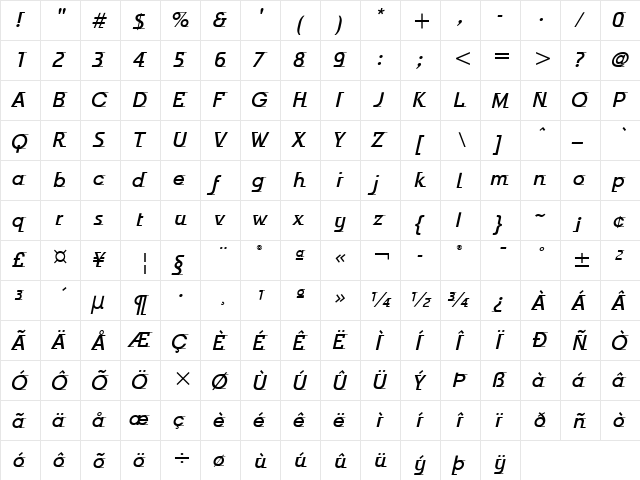
Odyssee ITC Medium Italic
Design Context for Odyssee ITC Typeface
Odyssee ITC offers clean, dependable letterforms without strong stylistic allegiance, making it a practical choice for designers who need flexibility. Its italic angle brings a sense of urgency and motion to the letterforms.
Pro Tip: Try Odyssee ITC for annotation and caption copy alongside an upright companion — the contrast in angle creates a dynamic but ordered typographic system.